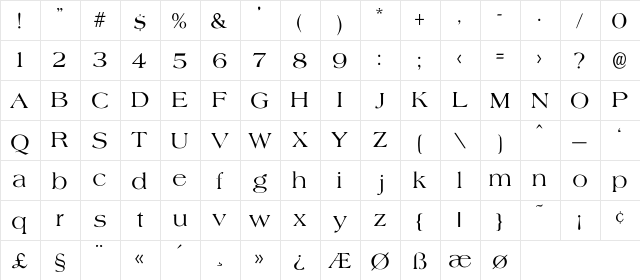
Agate-Normal Regular
Design Context for Agate-Normal Typeface
Agate-Normal offers clean, dependable letterforms without strong stylistic allegiance, making it a practical choice for designers who need flexibility.
Pro Tip: Use Agate-Normal in both headline and body roles to test its range before committing to a single application.